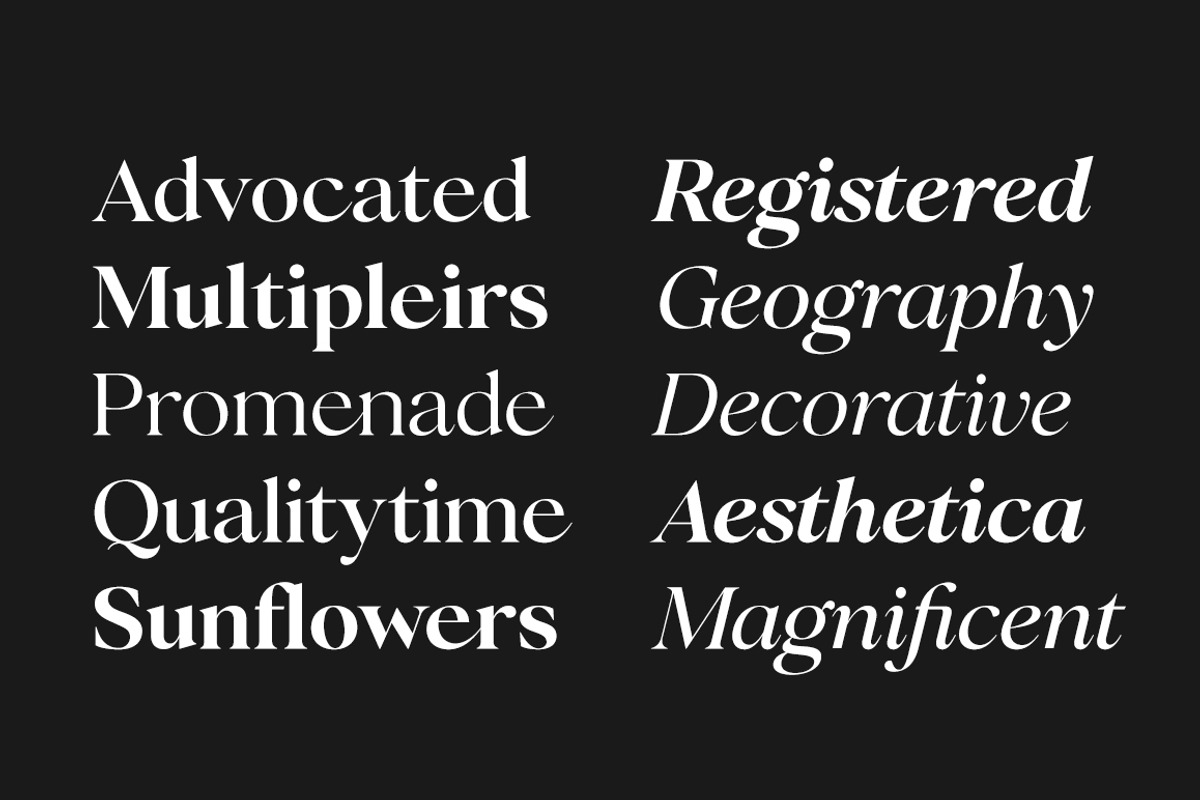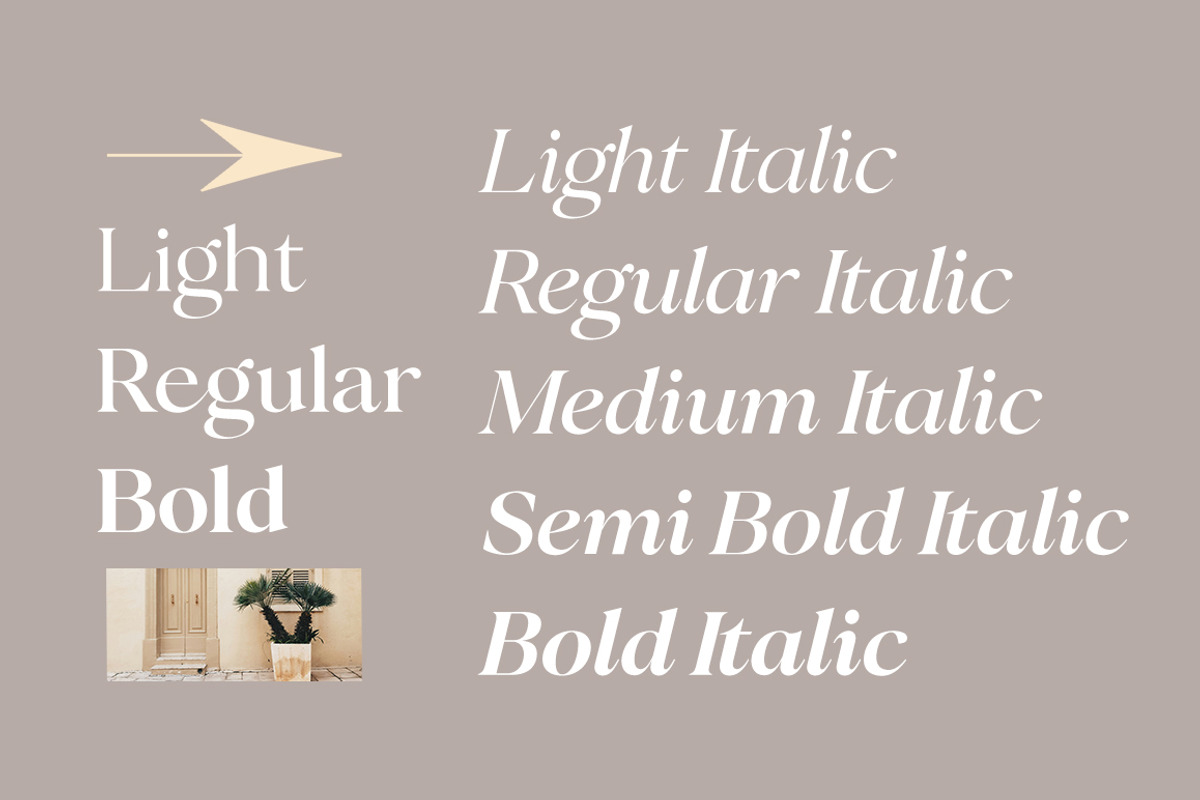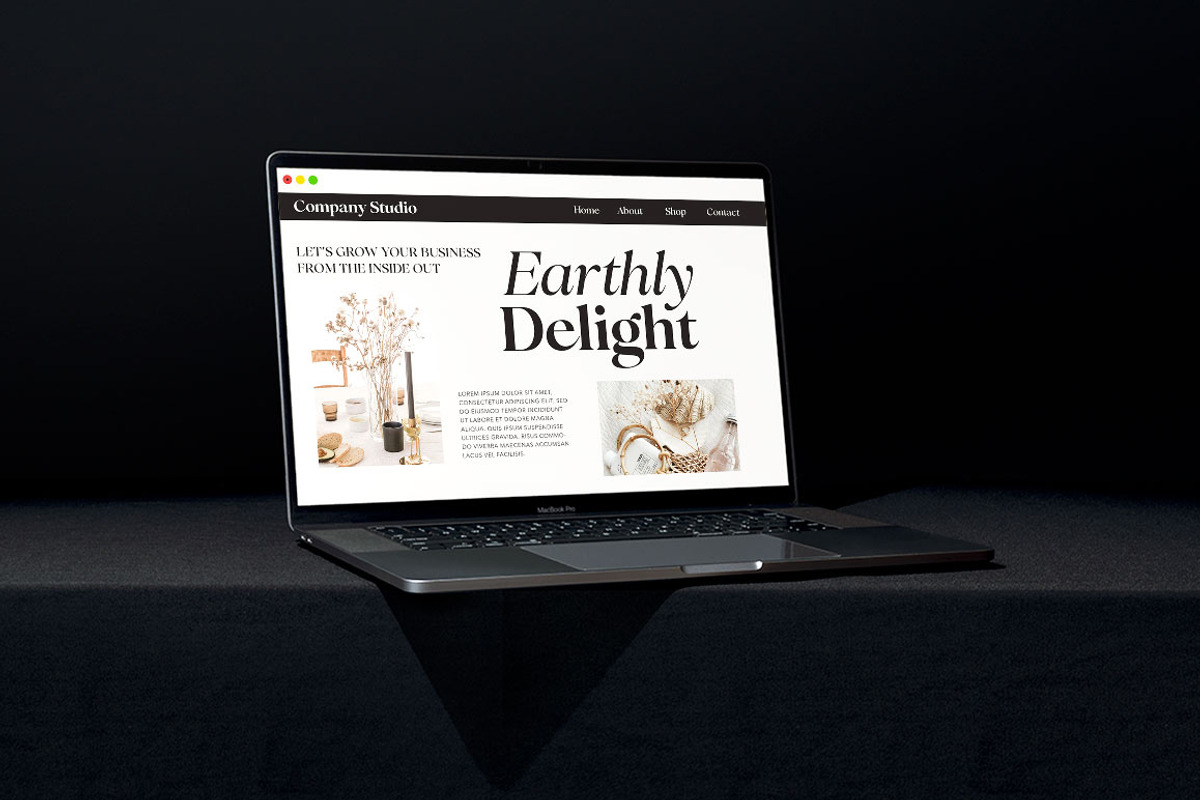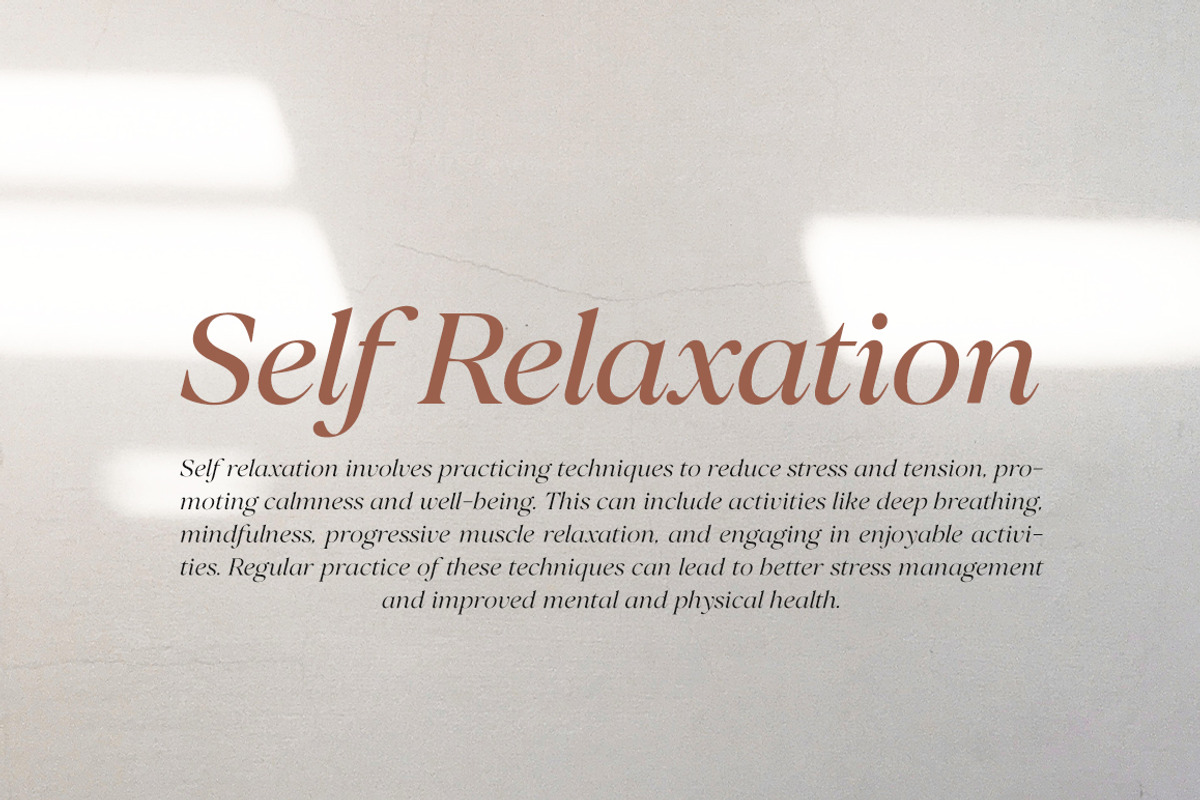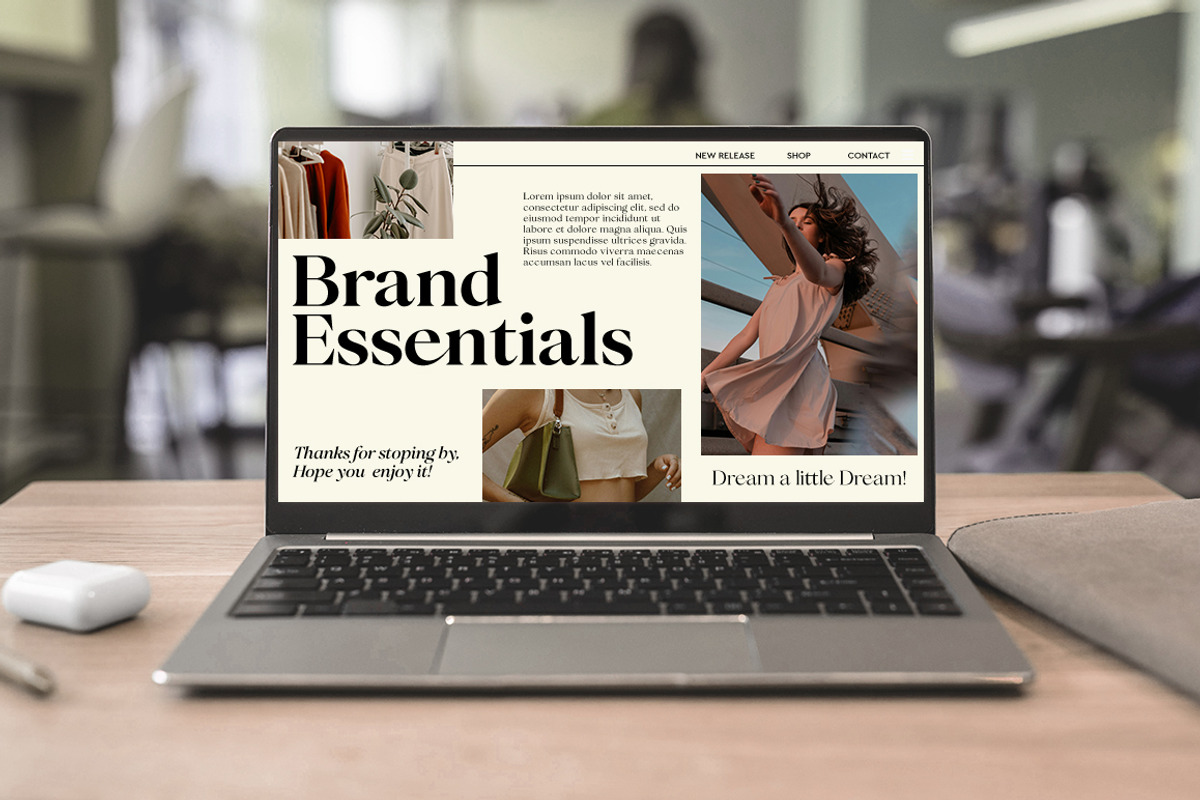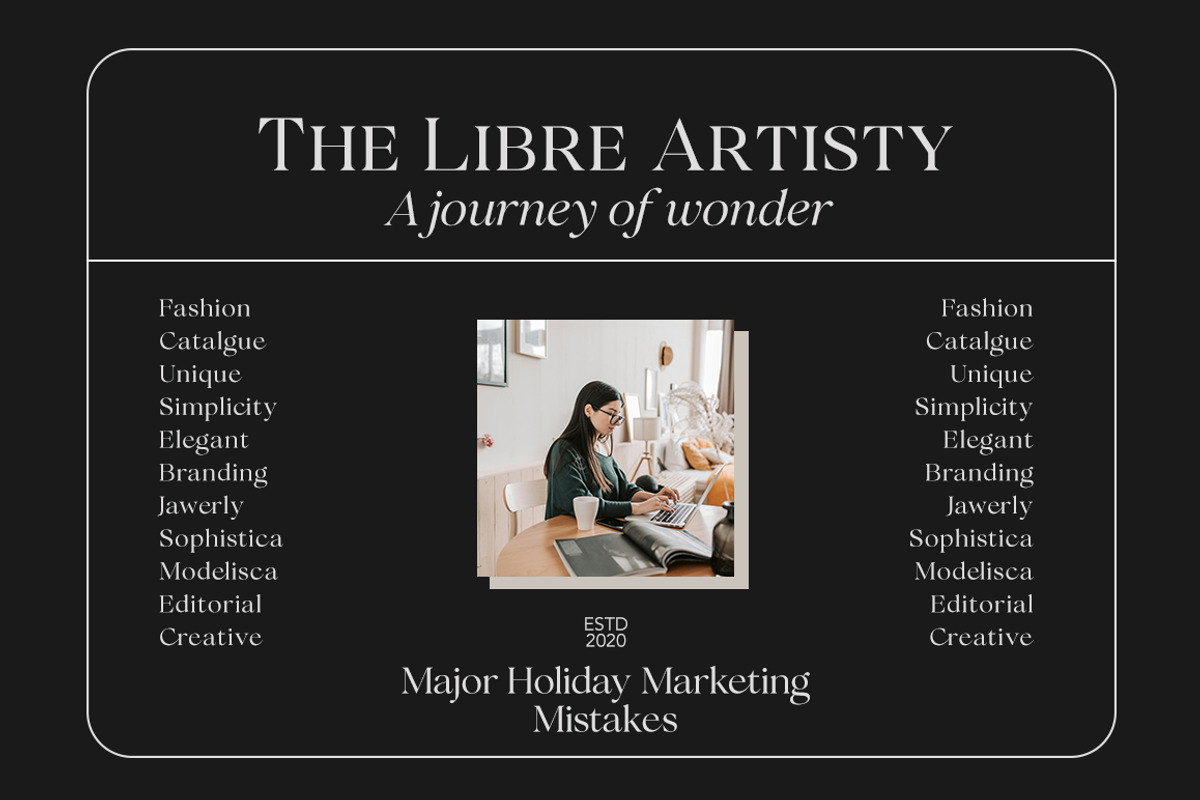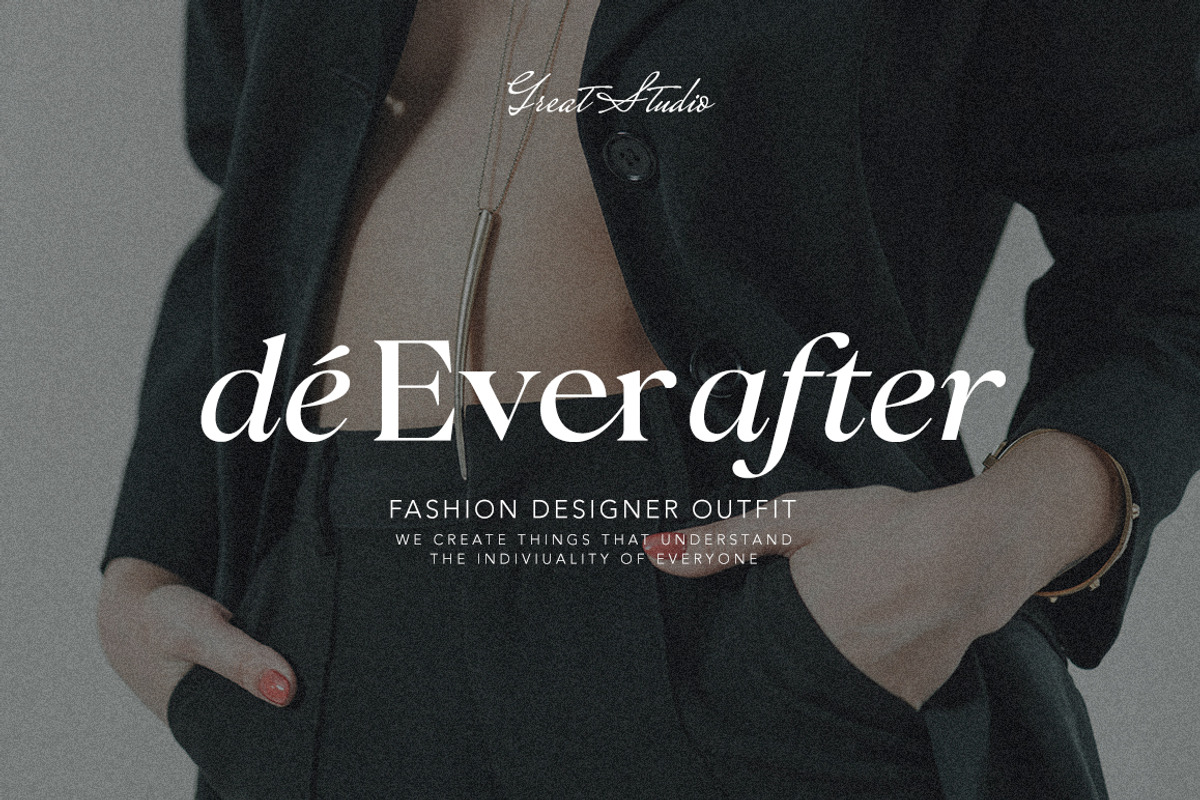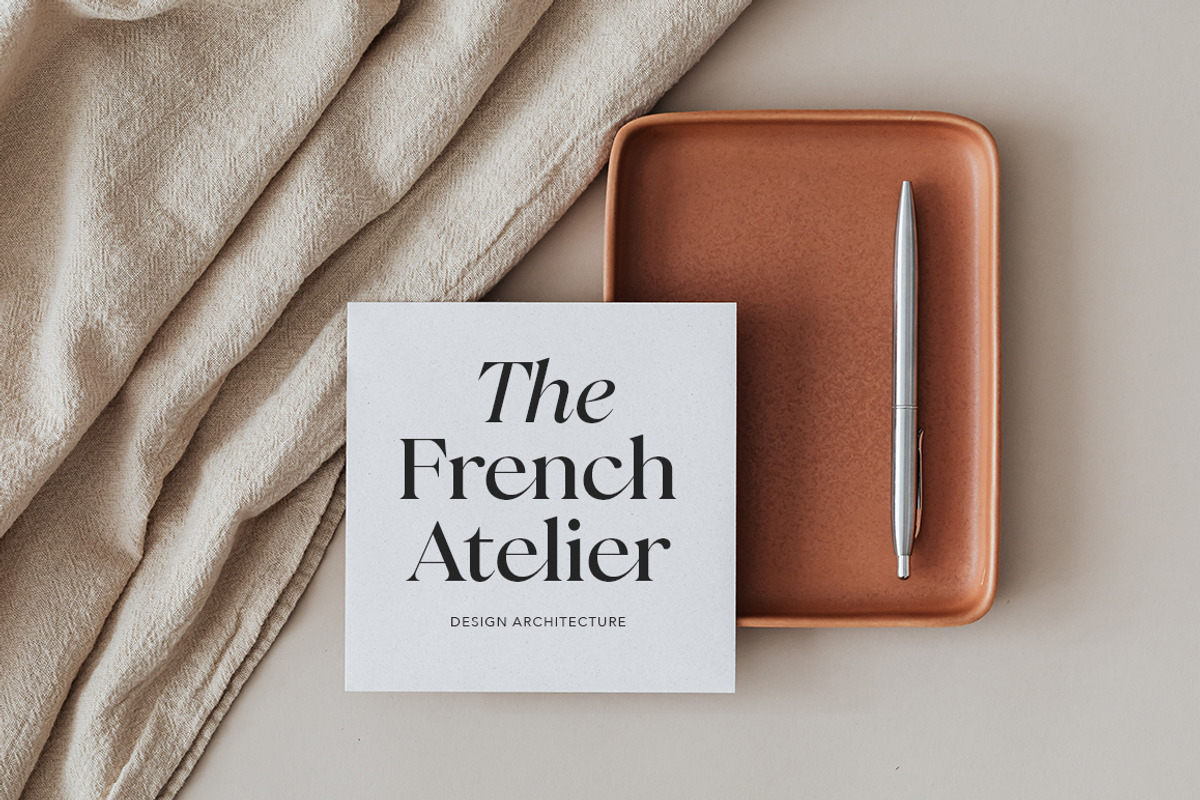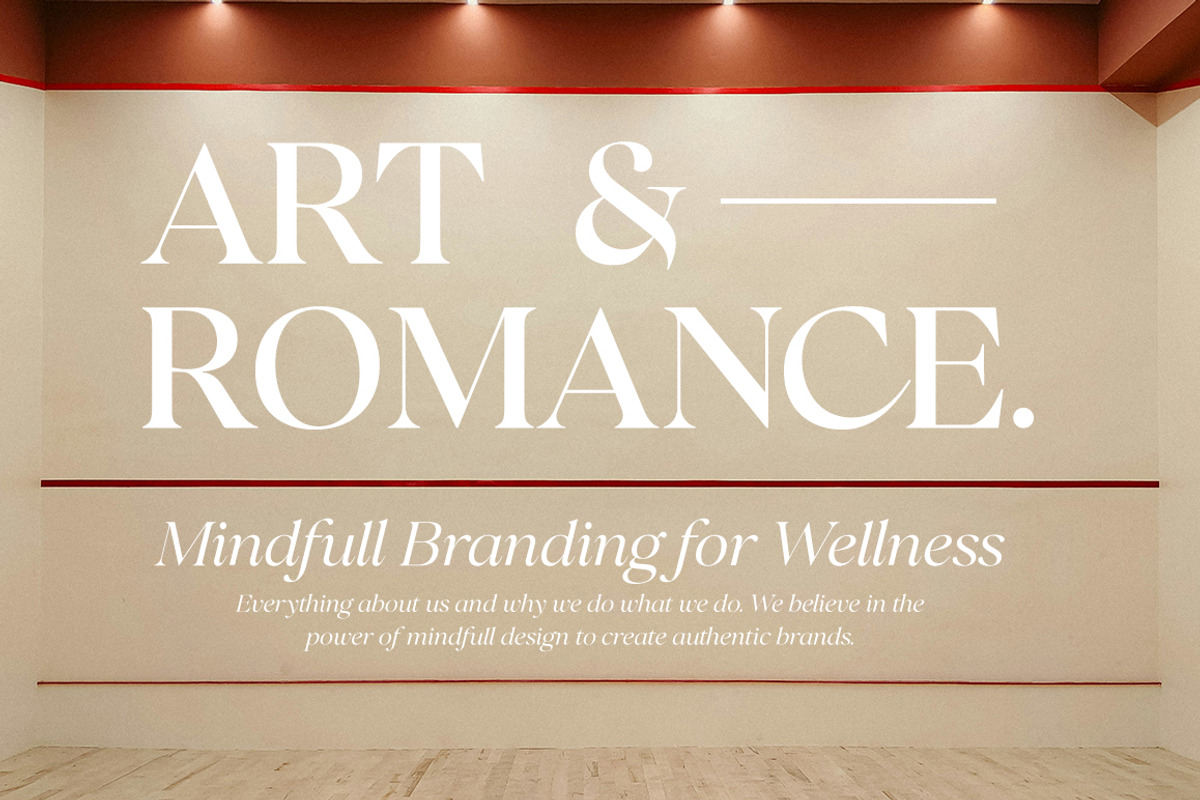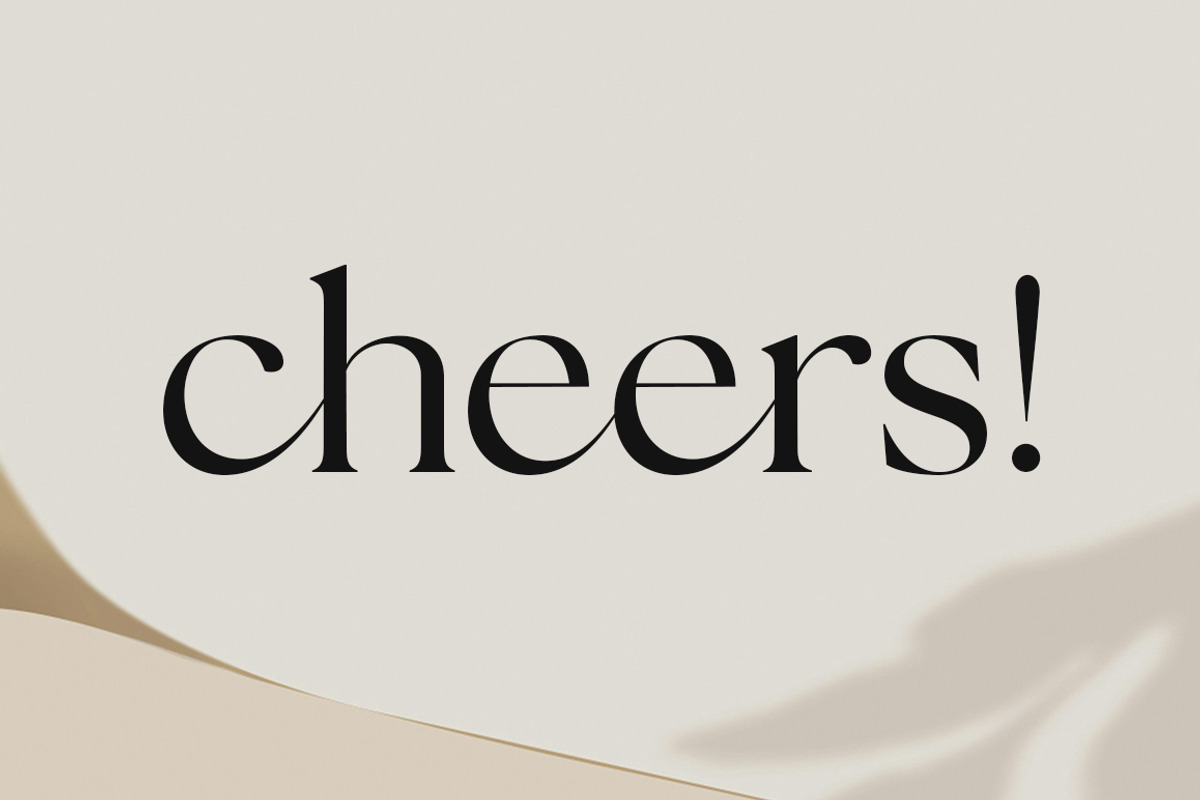
Perfect Challenge Serif Family
Perfect Challenge Serif is a refined, high-end typeface that exudes sophistication and timeless elegance. Blending smooth, flowing curves with sharp, deliberate strokes, it strikes the perfect balance between classic luxury and modern prestige. Every letterform is meticulously crafted to convey grace, confidence, and exclusivity.
Whether used in uppercase for bold impact or in elegant scripts for delicate detaPerfect Challenge Serif is designed to elevate any visual experience. Its elegant flair and luxurious aura make it a standout choice for upscale branding and premium designs.
Stylish ligatures and alternate characters
High contrast between thick and thin strokes
Graceful serifs or calligraphic touches (depending on style variant)
Optimized for print and digital elegance
Multilingual support Latin Pro
Ideal Uses:
Luxury branding (fashion, cosmetics, jewelry)
High-end product packaging (perfume bottles, wine labels, gourmet foods)
Wedding invitations and premium event stationery
Magazine headers and editorial design
Logo design for boutique businesses
Hotel and spa branding for upscale experiences